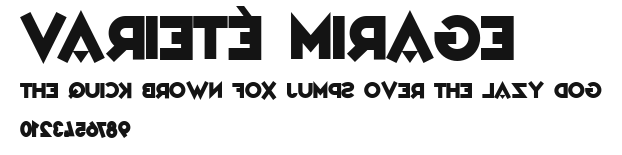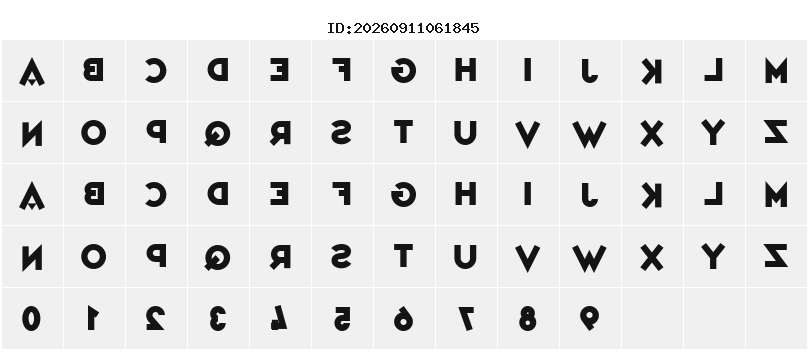
• Font Name: Varieté Mirage
• Full Font Name: Varieté Mirage
• Designer: Peter Wiegel
About Varieté Mirage.ttf
Varieté Mirage.ttf is a modern, elegant sans-serif font designed for ultimate readability and visual harmony. Perfect for branding, headlines, web design, and print materials.